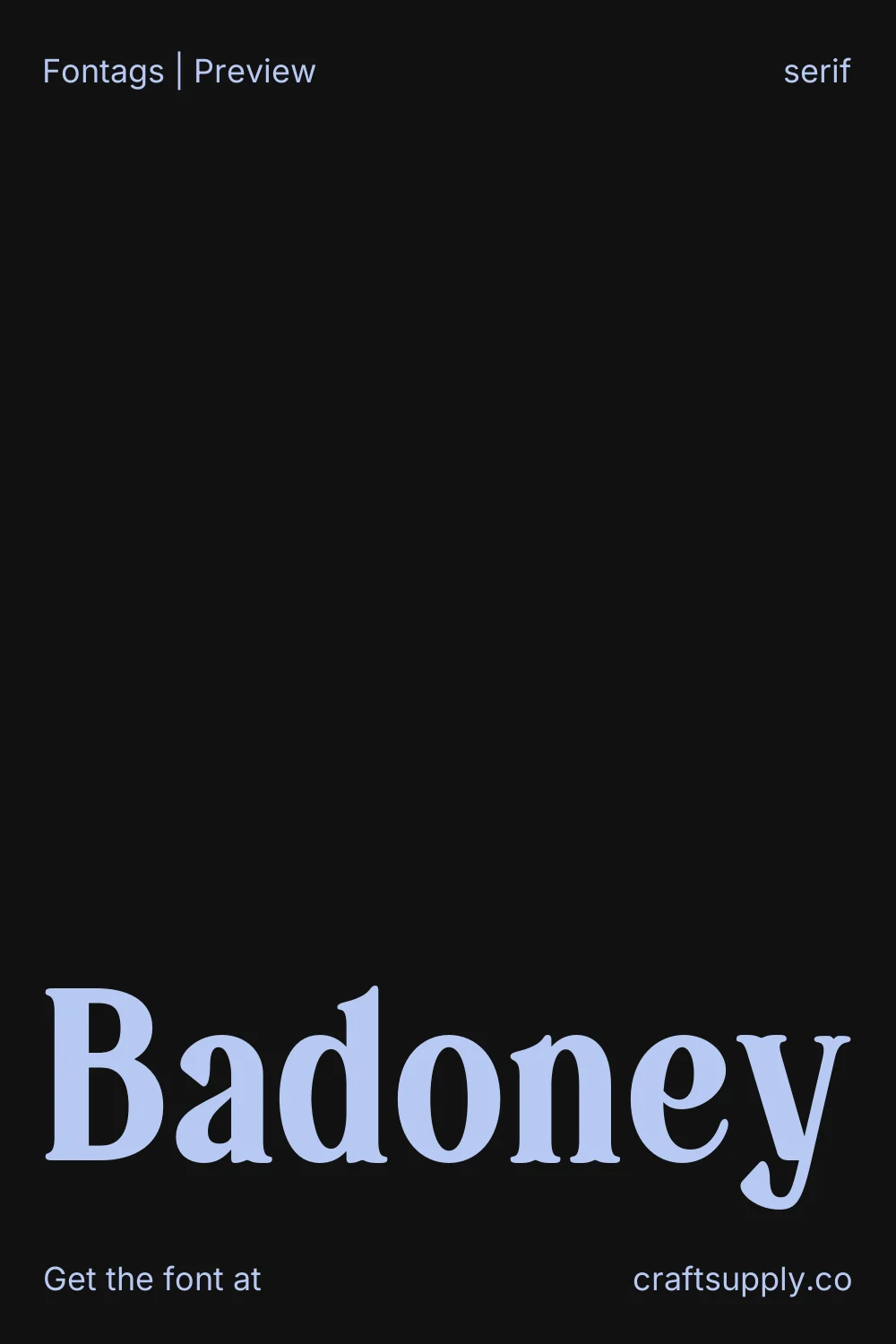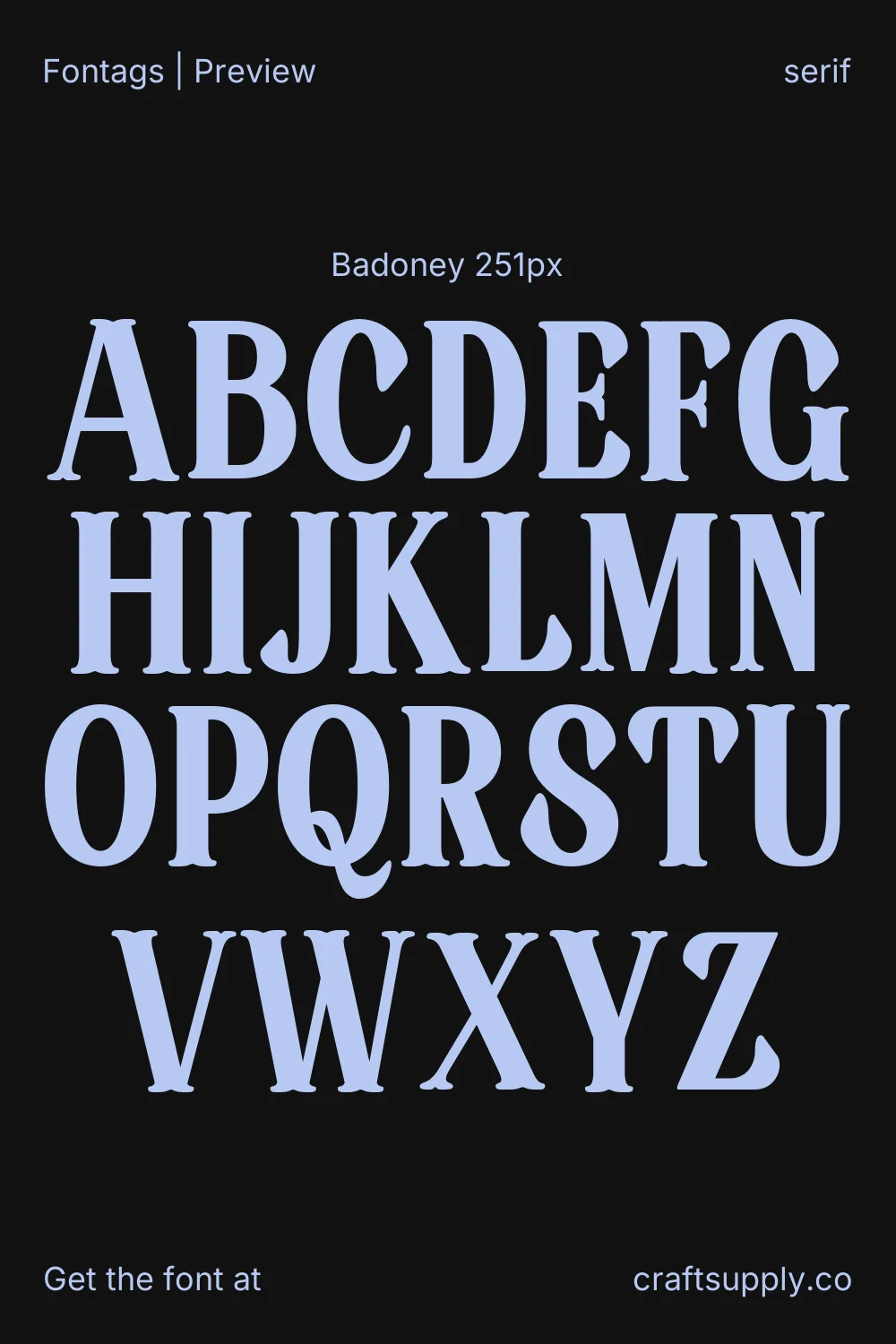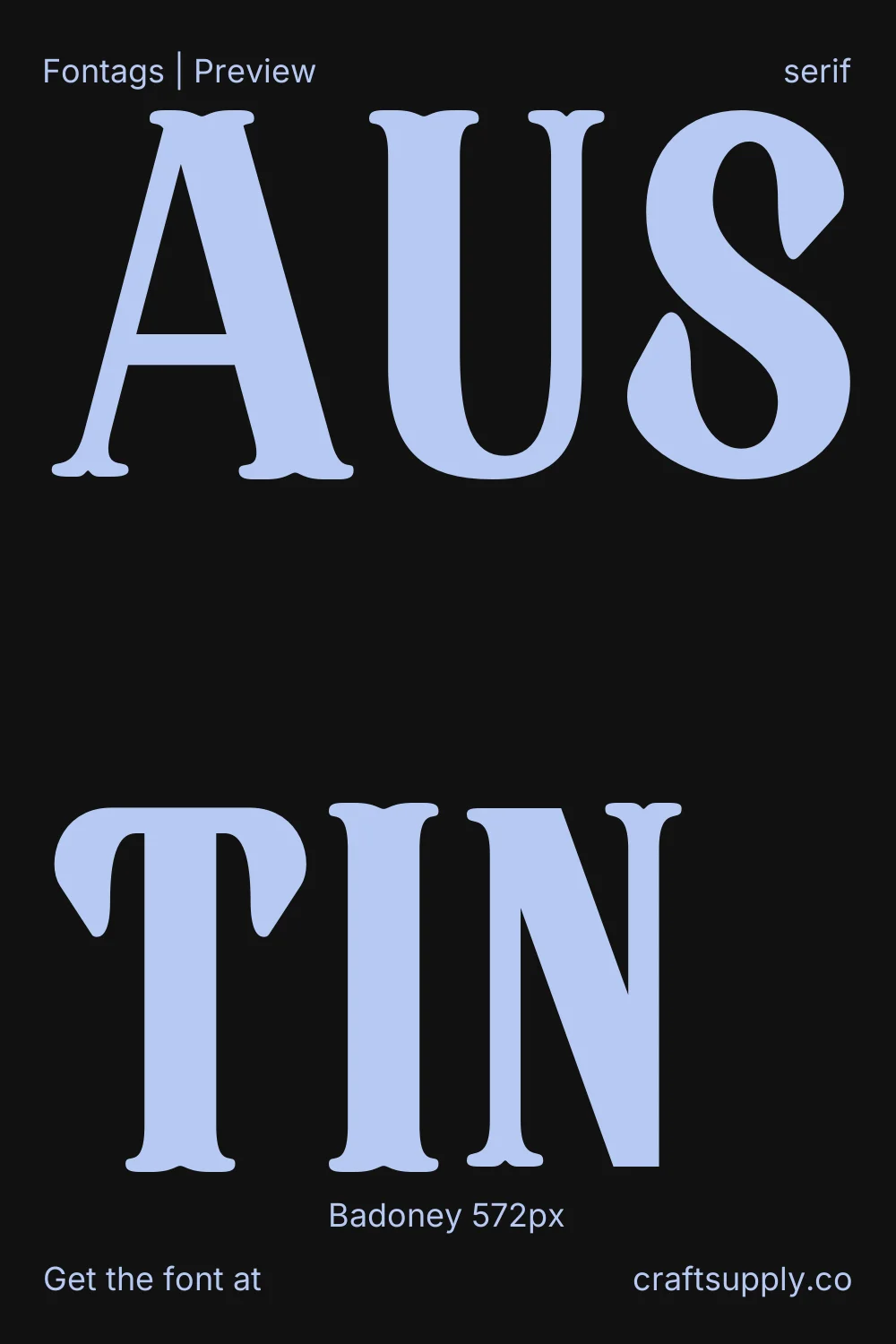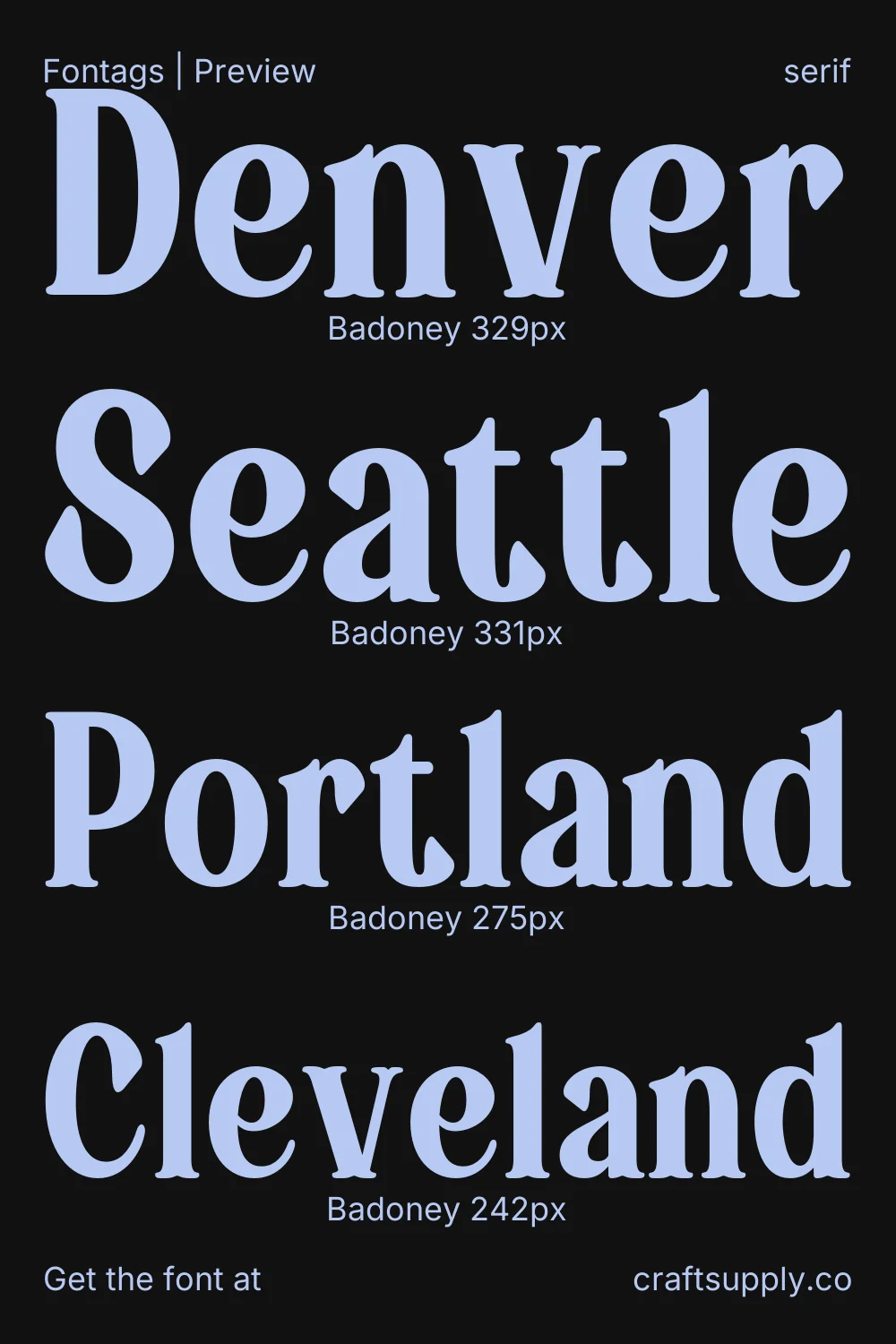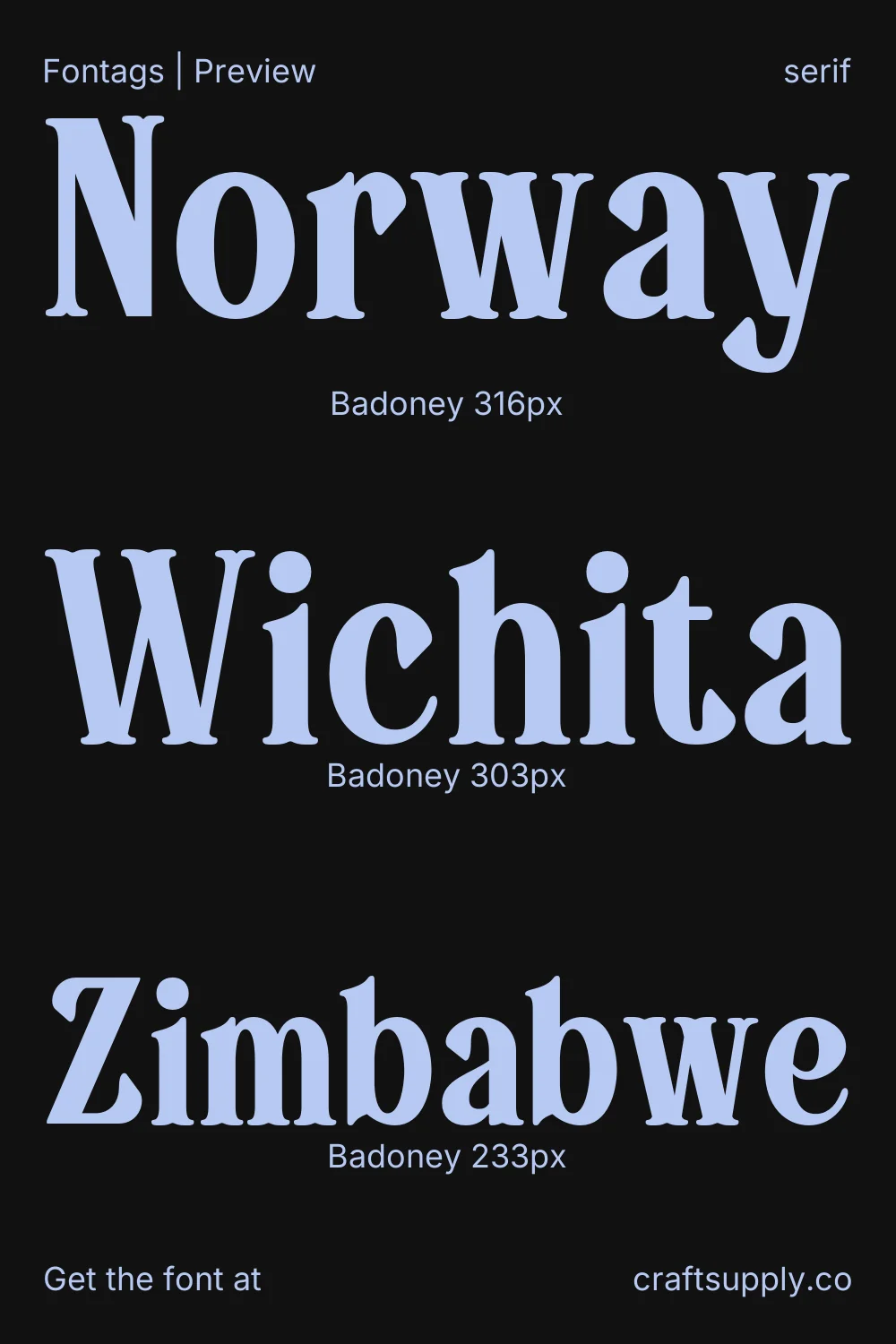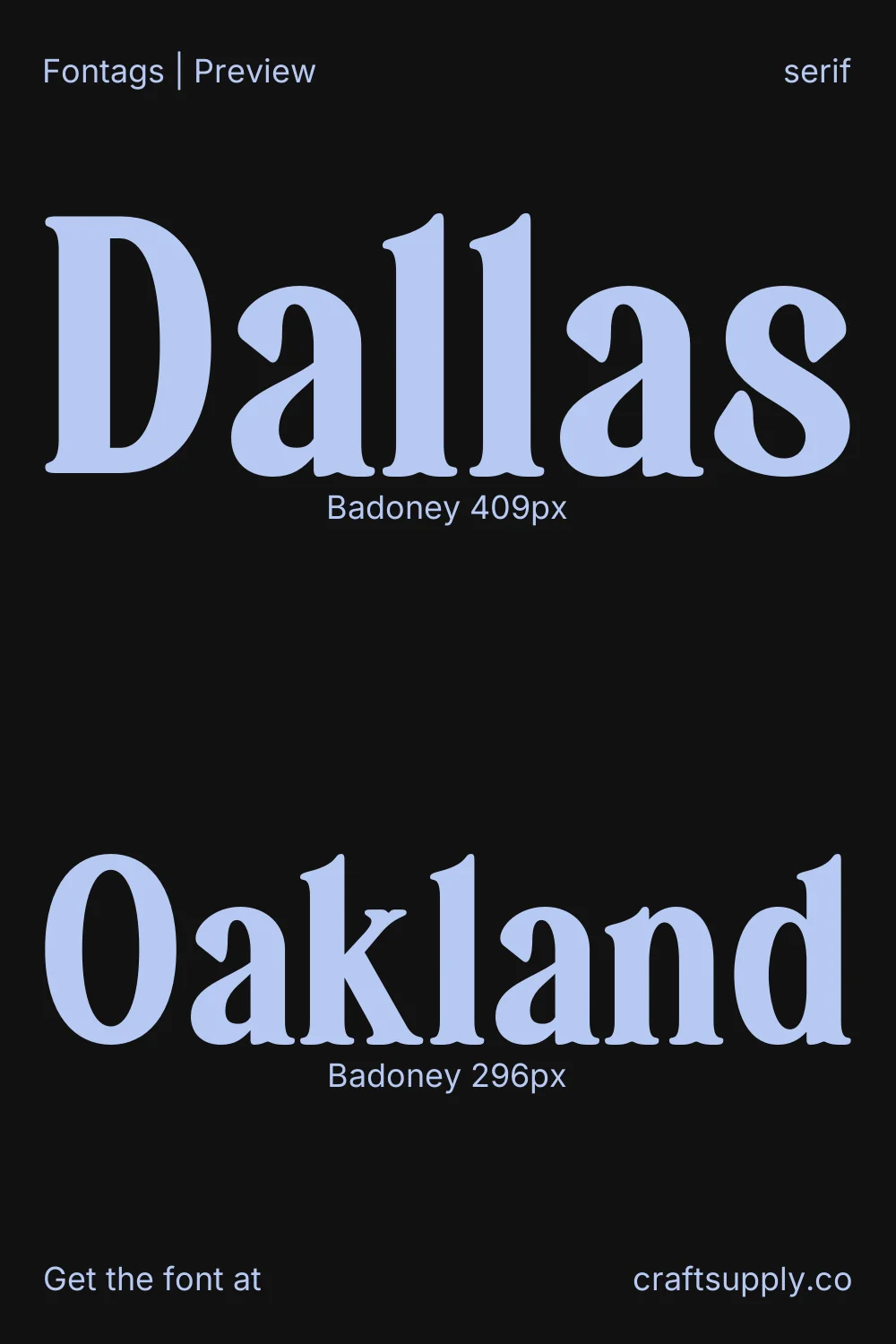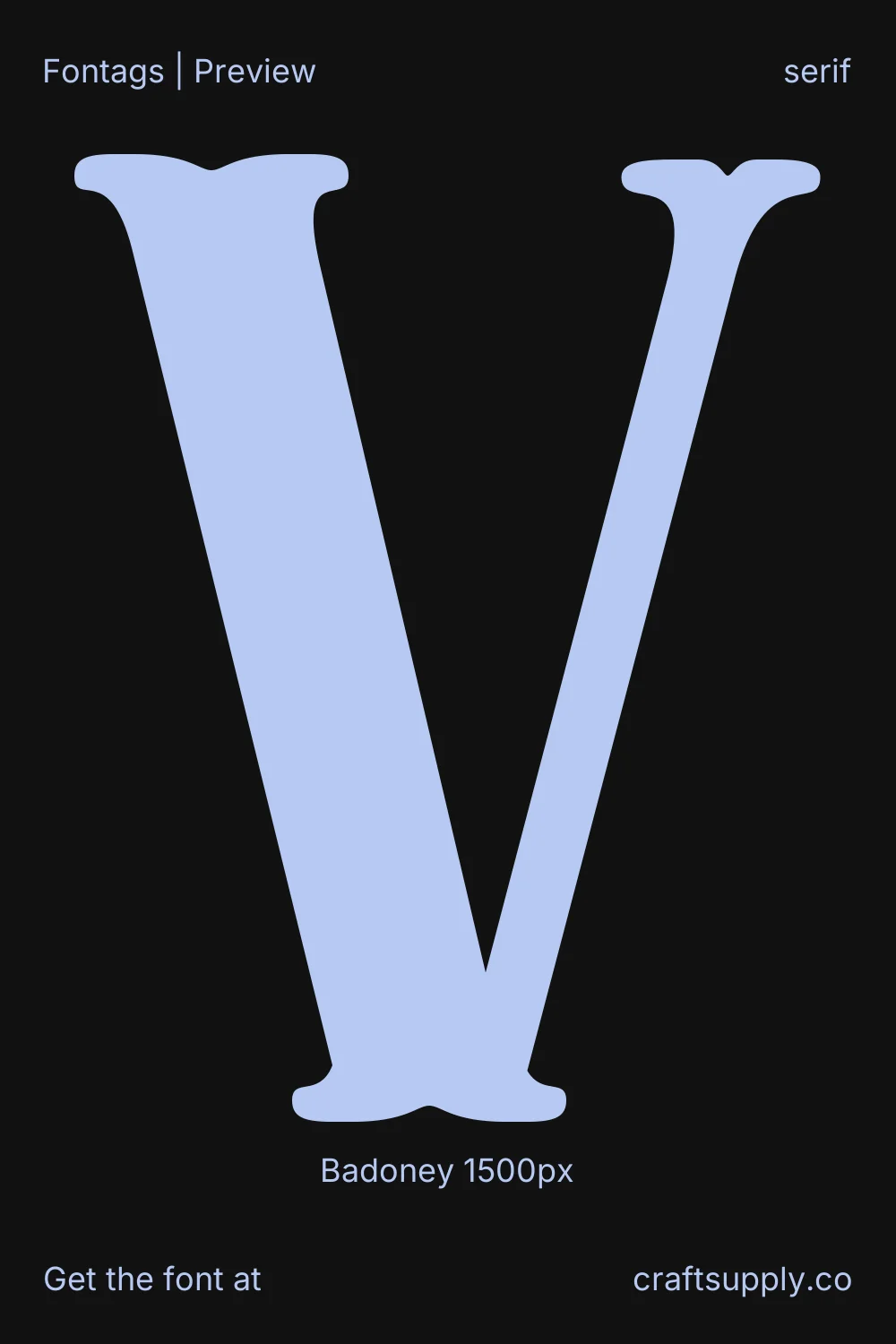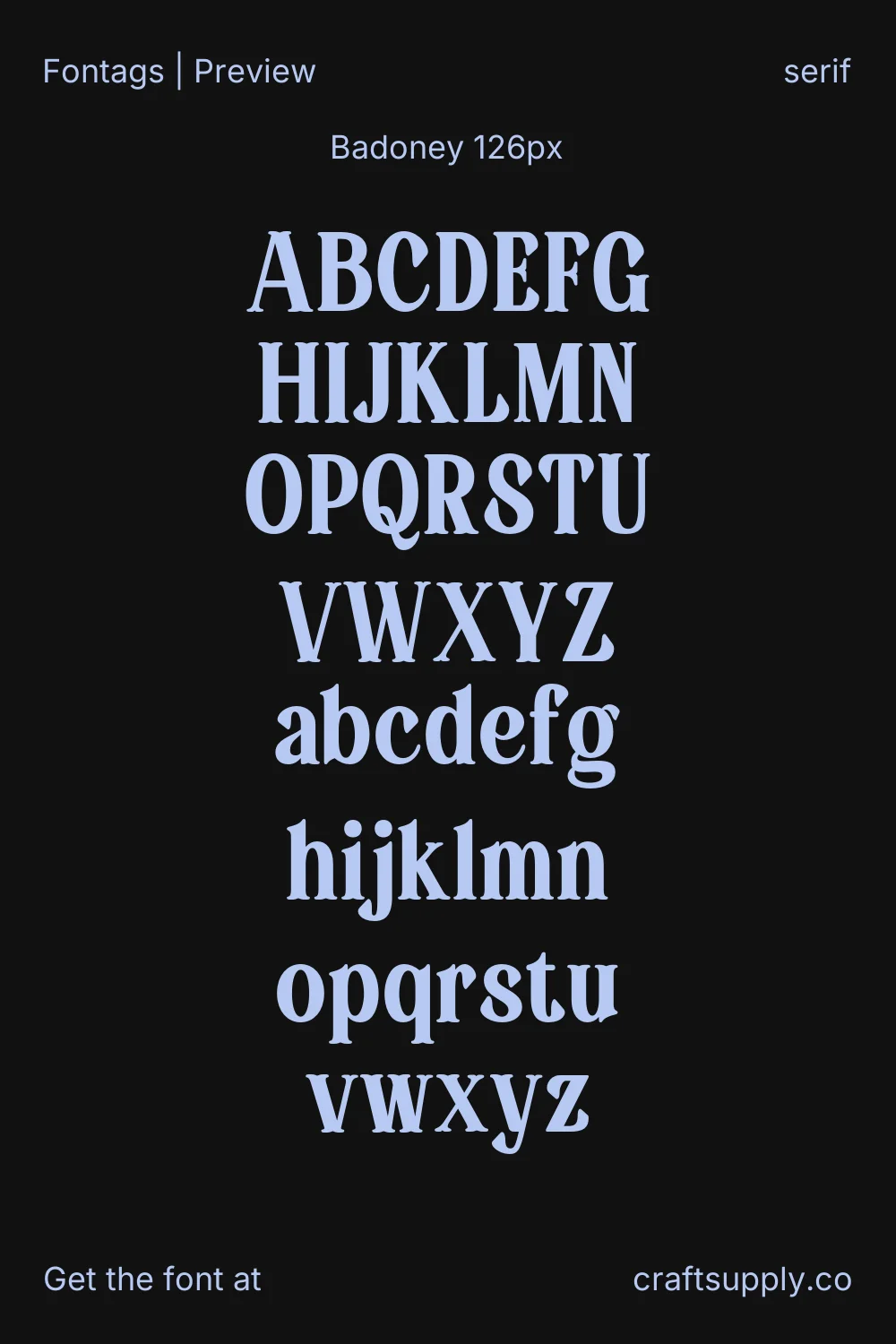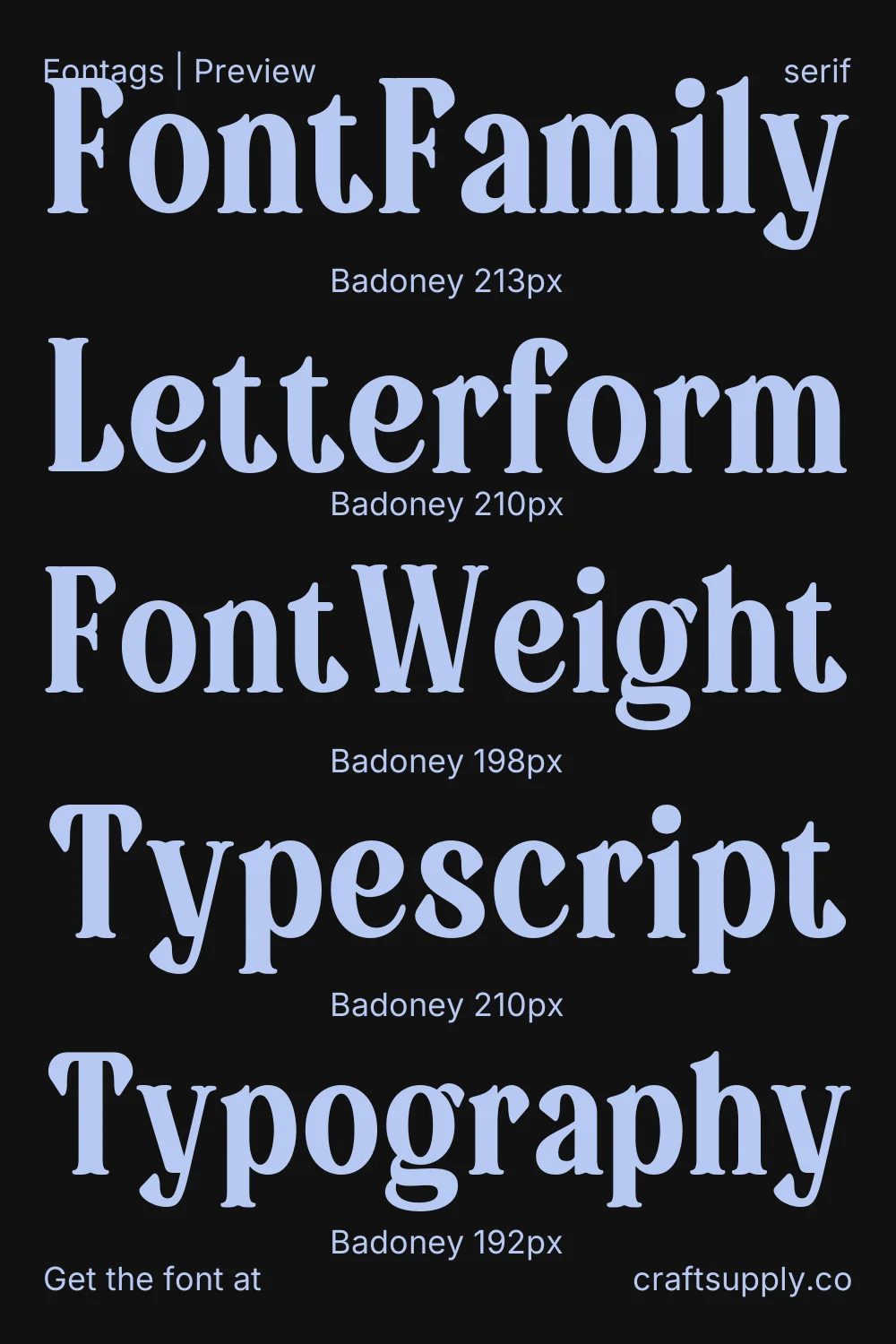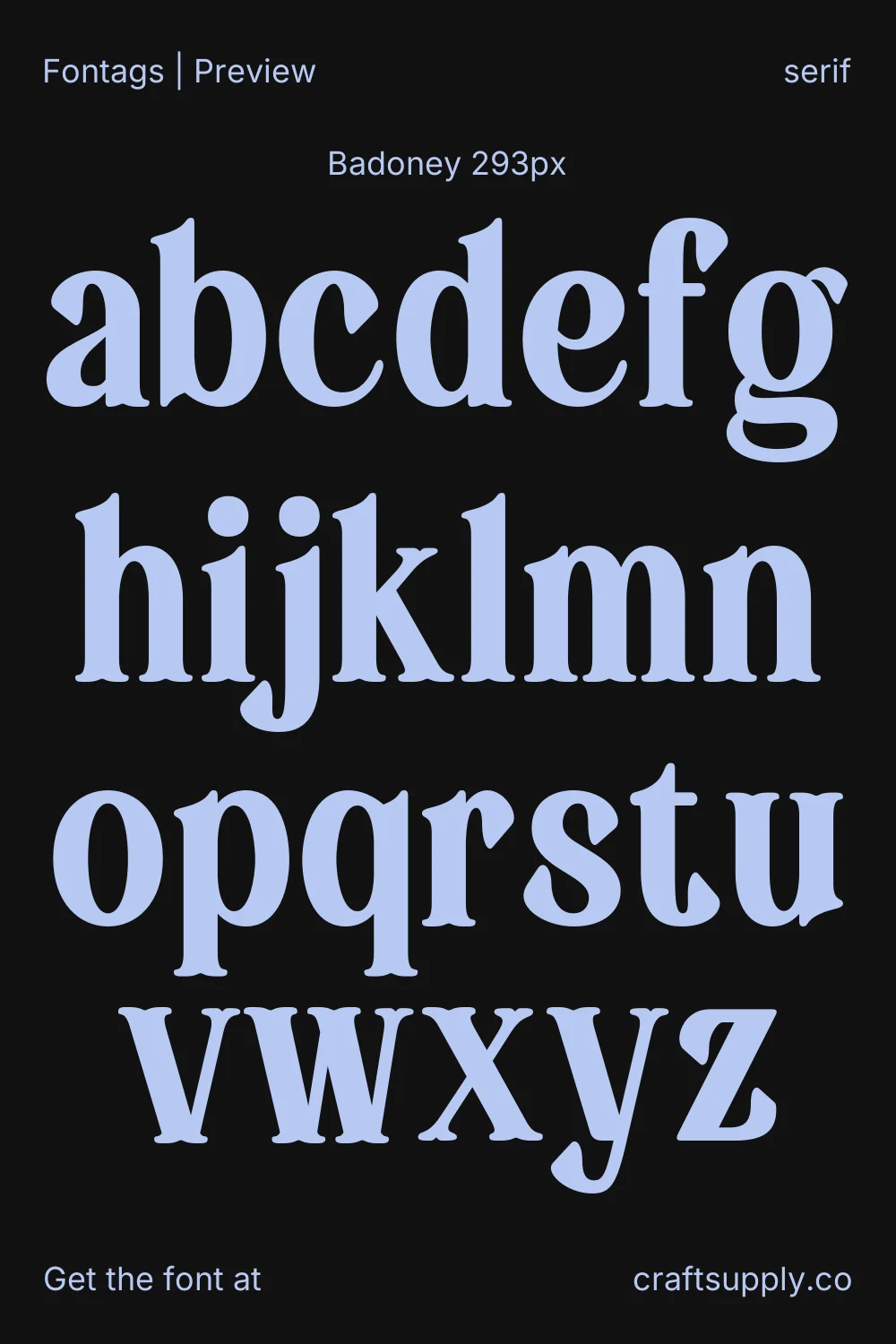
Badoney
Badoney is a stylish serif font that blends sophistication with timeless elegance. Each character is meticulously crafted with a refined balance of curves and lines, making it ideal for impactful display use, editorial headlines, magazine covers, and branding. Its versatility ensures a polished presence across both print and digital platforms, while the included regular and italic styles offer flexibility for a wide range of design projects.